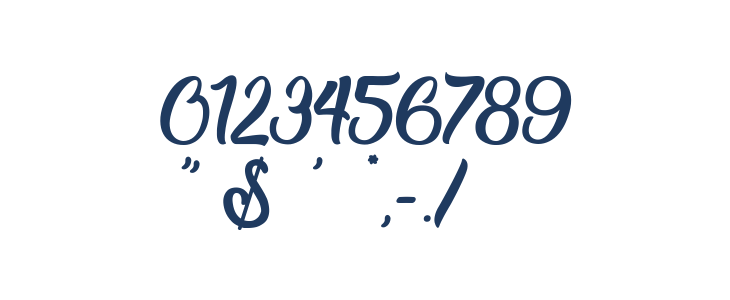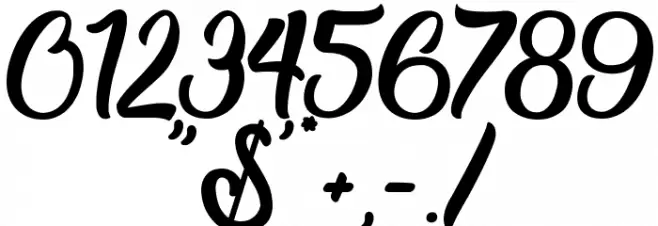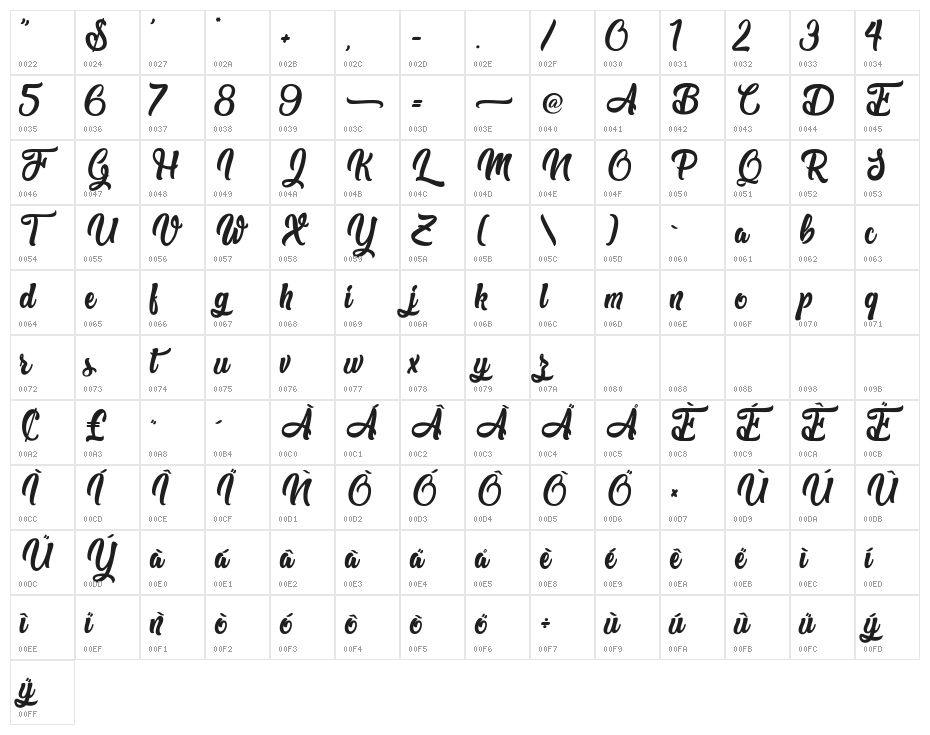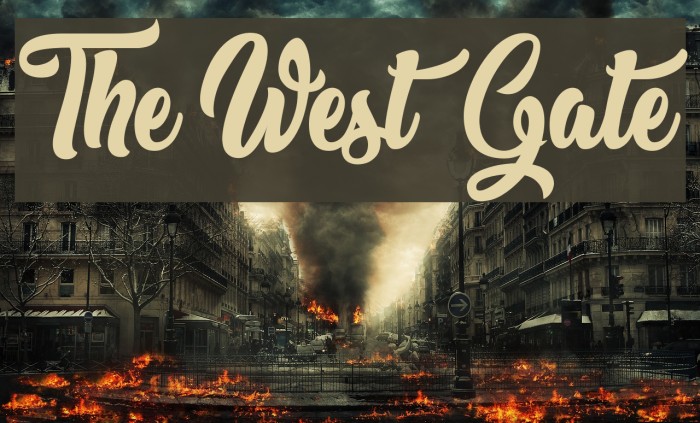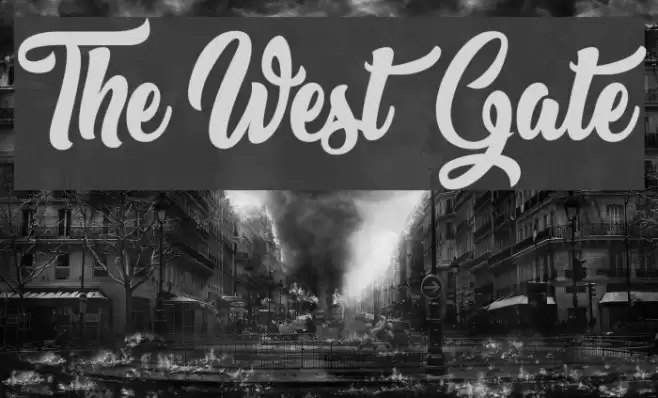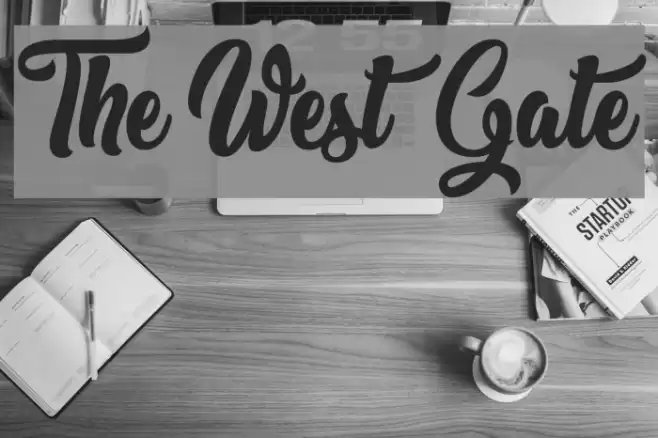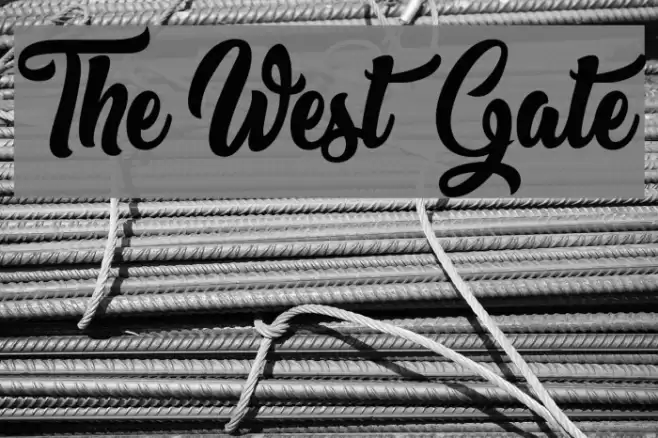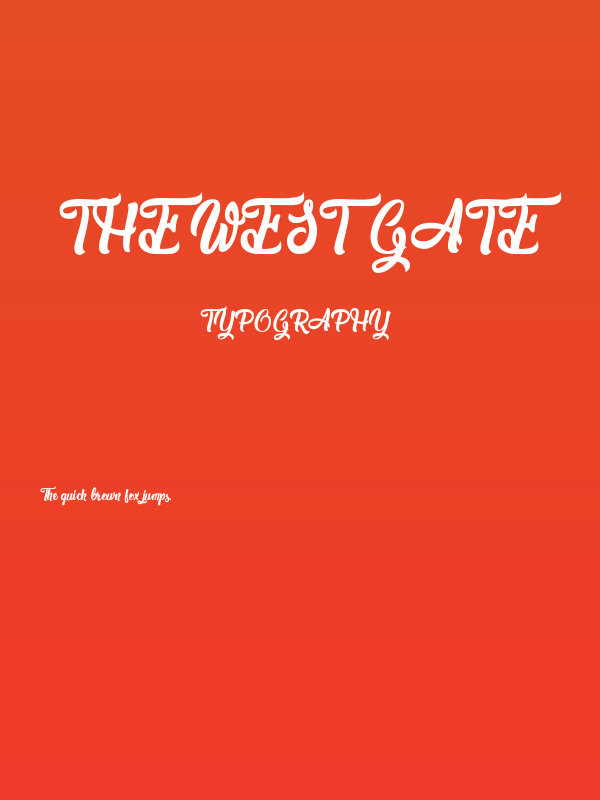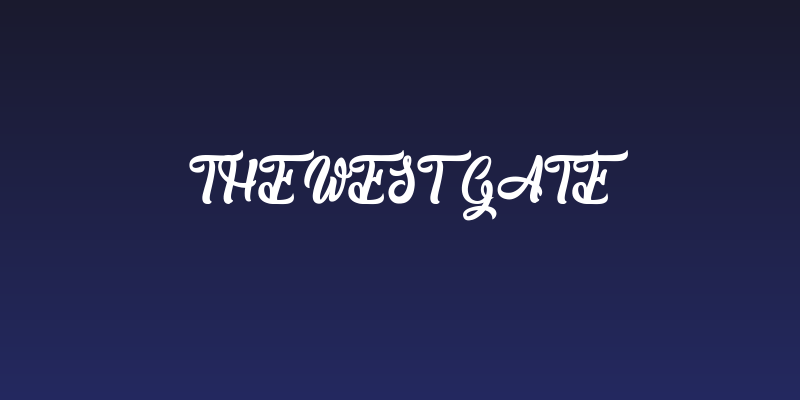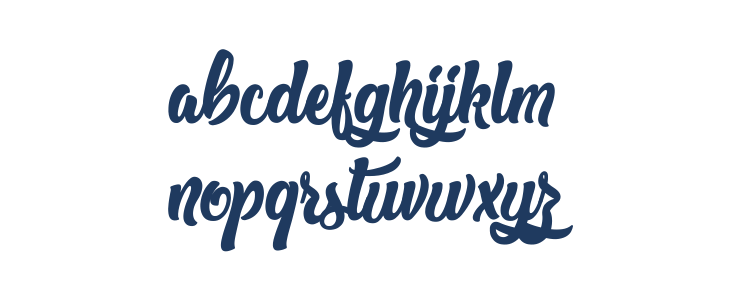
The West Gate Font
The West Gate Description
This font features a bold and expressive script style with a strong presence. The uppercase letters are elegantly curved with a flowing, cursive design, while the lowercase letters maintain a consistent style with slightly exaggerated loops and swashes. The numerals are bold and maintain the script's fluidity, making them stand out. Special characters are designed to complement the overall aesthetic, adding a touch of flair. The font's thick strokes and smooth curves give it a dynamic and energetic feel, suitable for creative and impactful designs.
| Proposed Projects | Ideal for branding, logos, invitations, and decorative headlines. |